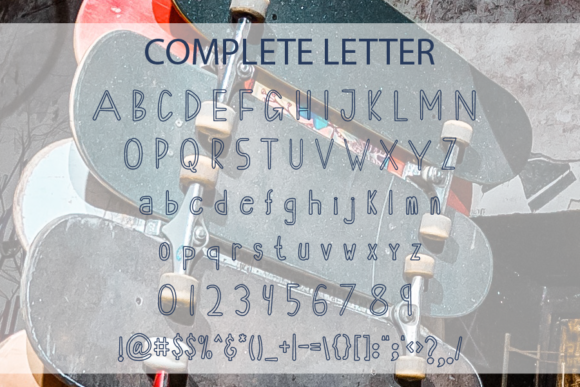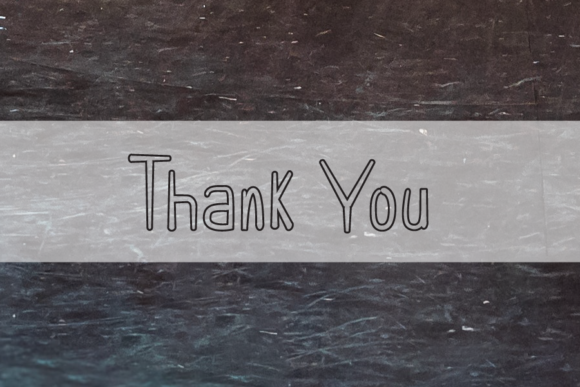
Introduction to Hi Strange Font
Remember that moment when you’re working on a creative project and you just can’t seem to find the perfect font to bring it all together? You’ve tried countless combinations, but nothing seems to capture the essence of your design. That’s where the Hi Strange Font comes in – a delightful display font that’s guaranteed to add a dash of whimsy and personality to your work.
As a valuable resource for designers, the Hi Strange Font is a game-changer for anyone looking to elevate their designs with a high-quality, unique touch. Its quirky charm is sure to make your projects stand out, whether you’re working on a graphic design, a branding project, or simply a fun social media graphic.
Key Features of Hi Strange Font
- Unique and creative design, ideal for artistic and creative projects
- High-quality font with crisp and clear characters, suitable for a variety of design applications
- Perfect for designers, artists, and creatives looking for a distinctive and eye-catching font for their next project
Honest Review: Hi Strange Font
As a designer, I’m always on the lookout for unique and high-quality fonts to elevate my creative projects. The Hi Strange Font is one such find that has caught my attention. Let’s dive into the details.
- ✨ Unique and quirky design that adds a touch of personality to any project.
- ✨ High-quality typography that’s crisp and clear, making it perfect for both digital and print media.
- ⚠️ Limited character set, which might not be suitable for projects requiring a wide range of glyphs.
- ⚠️ Some users might find the font’s quirks distracting, especially when used in large blocks of text.
In conclusion, the Hi Strange Font is a great addition to any designer’s toolkit. While it may have its limitations, its unique design and high-quality typography make it an excellent choice for creative projects. If you’re looking for a font that will add some personality to your work, I’d definitely recommend giving it a try.
Hi Strange Font
Tips for Getting the Most Out of Hi Strange Font
To get the most out of the Hi Strange Font, experiment with different font sizes, colors, and combinations. You can also use it in conjunction with other design elements to create a cohesive and visually appealing design.
The Hi Strange Font is perfect for a variety of creative projects, including:
- Documents
- Posters